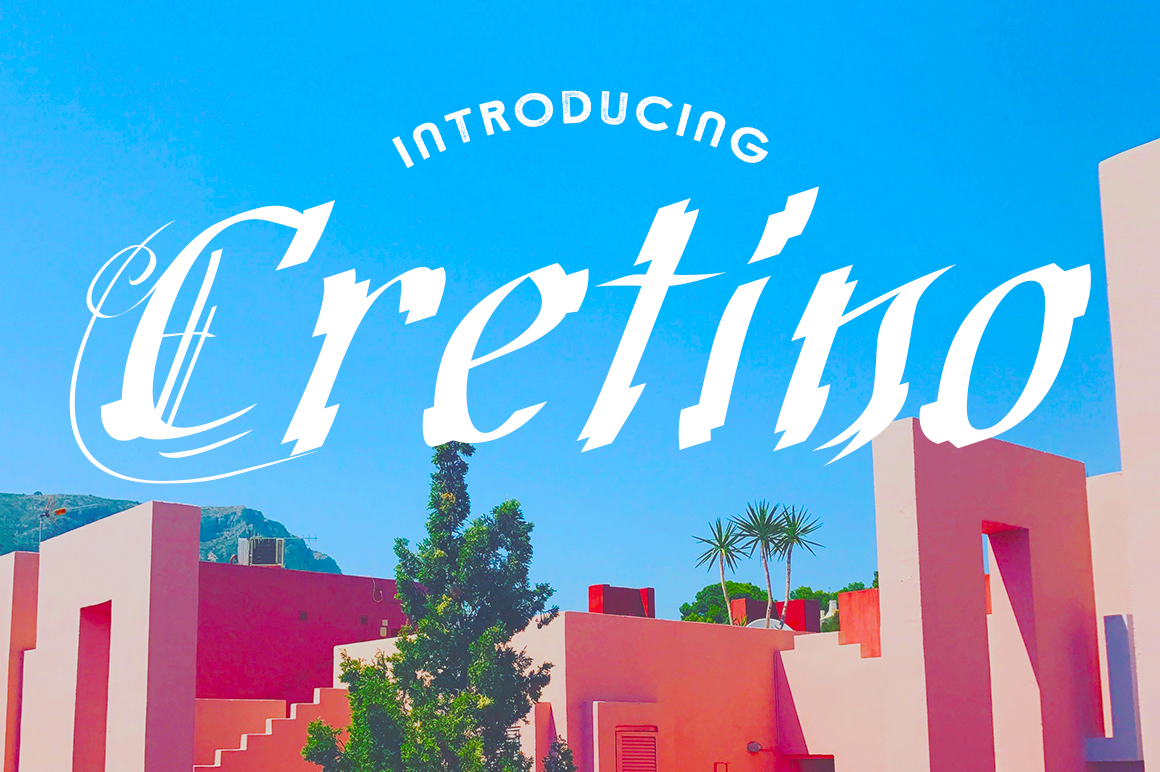
Cretino
About Cretino Font
Cretino is a fancy-schmancy, swash script font. This free font comes from the talent at Typodermic, and this script can be used to give your designs a retro inspired, ornate feel.